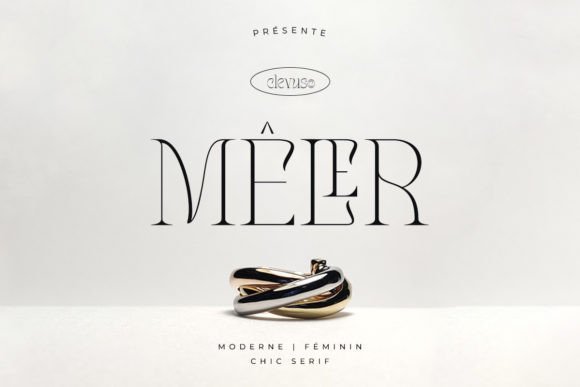
Looking for the best fonts for romantic books? Look no further than Meler Font, the stunning new serif font from Clevus that's taking the design world by storm. With its modern ligature design and iconic retro-inspired style, Meler is the perfect choice for anyone looking to add a touch of nostalgia and romance to their designs.
Whether you're designing a retro-inspired logo, creating a fashion brand, or putting together a magazine, Meler's regular and edgy lines will make your work stand out. This font is versatile and can be used for a range of design materials, including clothes, lettering, quotes, and more.
One of the things that makes Meler Font so special is its ability to effortlessly capture the essence of the 90s. With this font, you can infuse your work with a touch of nostalgia that's sure to resonate with your audience. And because Meler is PUA encoded, you can access all glyphs and swashes effortlessly, making it easy to add those finishing touches to your designs.
If you're looking for a font that's both beautiful and functional, Meler is the perfect choice. Its modern ligature design ensures that your work looks polished and professional, while its retro-inspired style adds a touch of romance and nostalgia that's sure to capture the hearts of your audience.